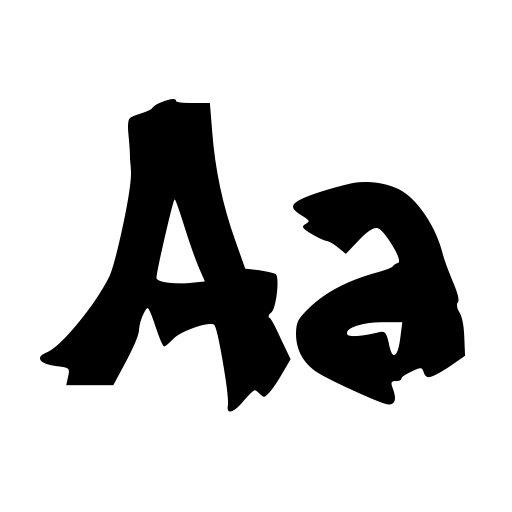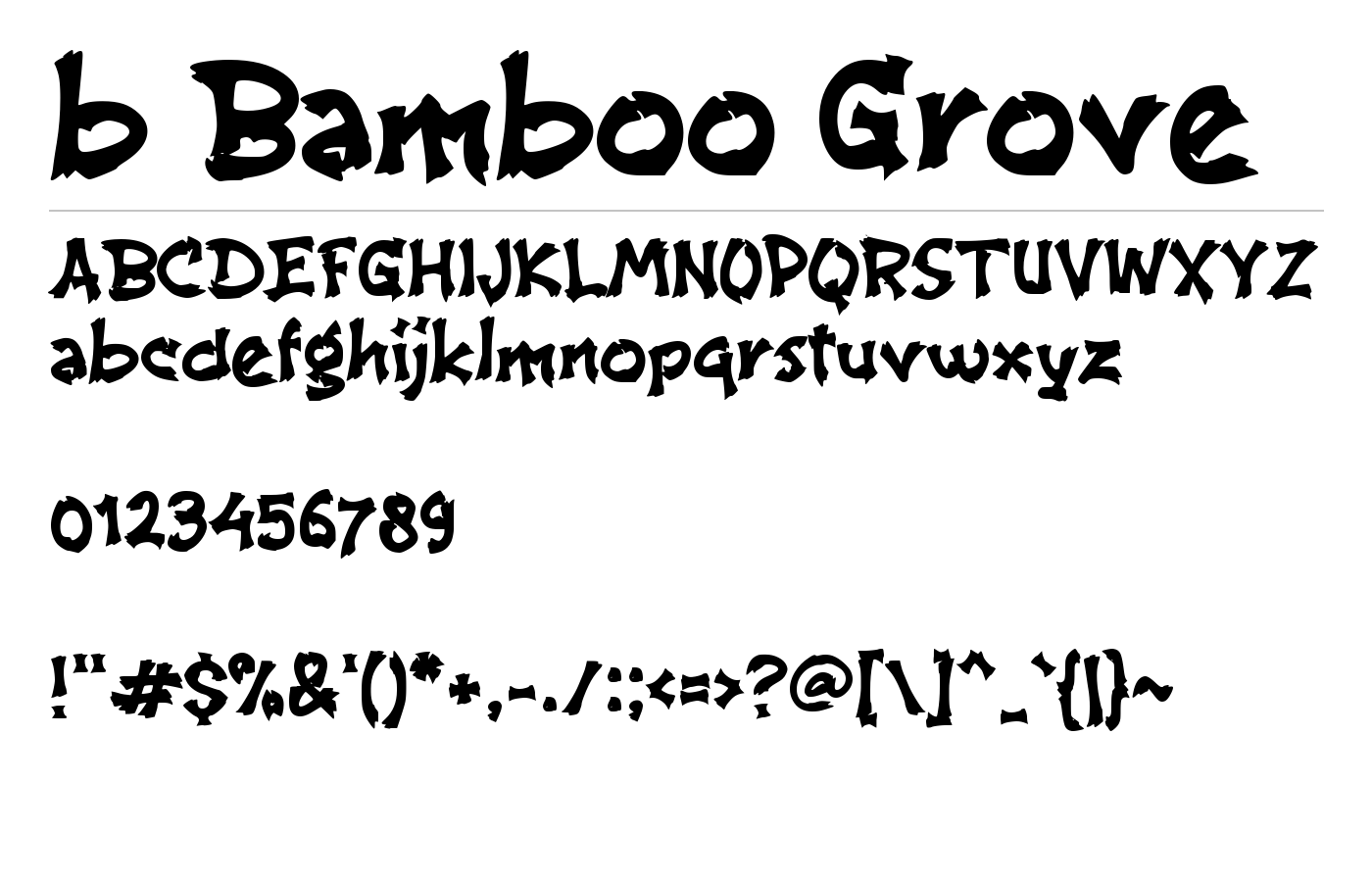
Bamboo Grove is a bold, playful display font with a hand-crafted, brushstroke style that evokes a lively and organic feel. Its irregular, textured strokes and wide letterforms give it a dynamic, energetic personality, making it ideal for creative projects, casual branding, or eye-catching headlines that want to convey warmth and uniqueness. This font works well in posters, packaging, and any design seeking an artistic, natural vibe.
b Bamboo Grove Font
About b Bamboo Grove Font